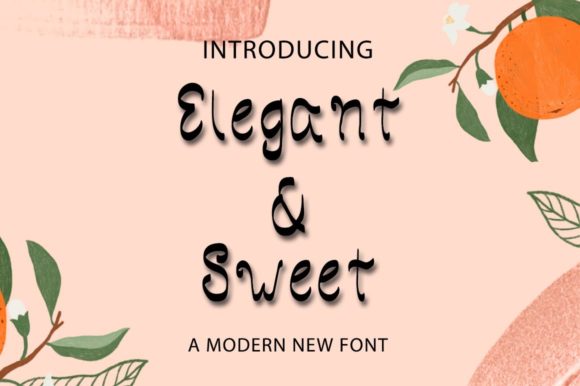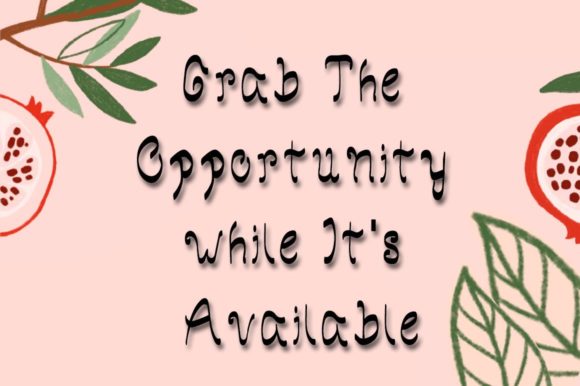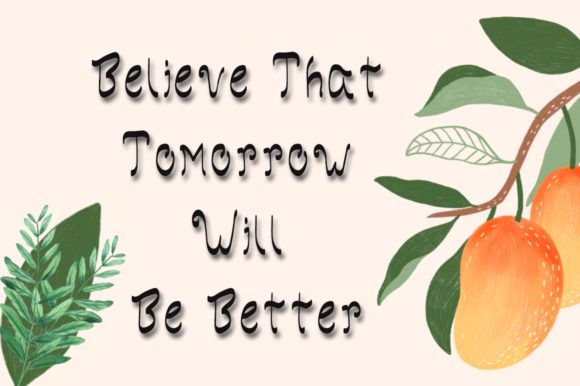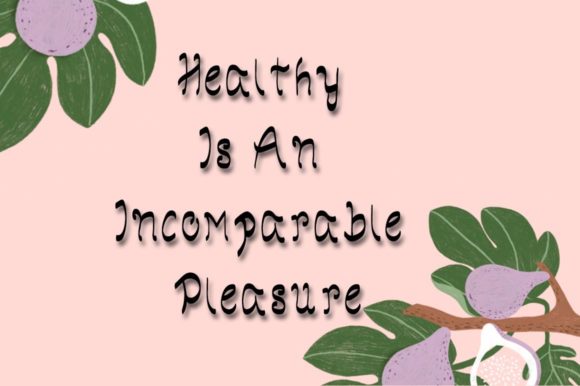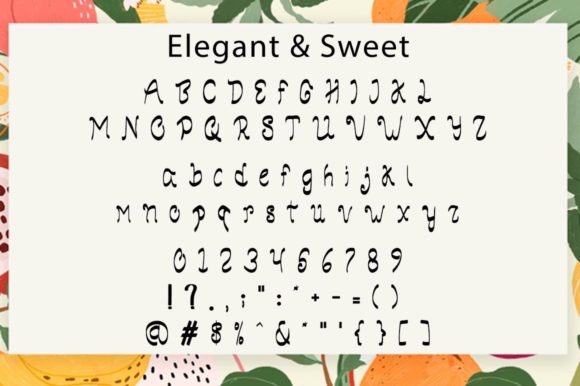
Elegant Sweet Font
Elegant & Sweet presents a delightful and whimsical handwritten font that effortlessly adds a touch of charm to any creative endeavor. This typeface, with its cute and swirly design, stands out as a versatile choice suitable for various contexts. Whether you’re seeking fonts to enhance your Instagram posts or crafting calligraphy scripts for DIY projects, Elegant & Sweet transforms every creative idea into a genuine work of art.
Ideal for a multitude of applications, this font brings a unique blend of elegance and sweetness to your designs. Its enchanting appearance makes it a perfect choice for logos, creating a distinct and memorable visual identity. The playful yet sophisticated nature of Elegant & Sweet also makes it well-suited for headings, infusing your text with character and style.
For those looking to make a statement on apparel, such as t-shirts, Elegant & Sweet proves to be a fantastic option. Its handwritten quality adds a personal and authentic touch, elevating your clothing designs to a new level of creativity. Additionally, the font lends itself beautifully to letterhead, bringing a touch of warmth and personality to your professional correspondence.
Signage benefits from the eye-catching allure of Elegant & Sweet, ensuring that your messages are not only clear but also visually appealing. Labels and packaging receive a boost in visual appeal, making your products stand out on shelves and catching the eye of potential customers. News articles and posters take on a fresh and engaging look when presented in this charming font, captivating readers and leaving a lasting impression.
Beyond the digital realm, Elegant & Sweet finds its place in physical materials like badges. Whether you’re organizing an event or creating identifiers for a team, this font adds a delightful touch to badges, making them both functional and aesthetically pleasing.
In a nutshell, Elegant & Sweet is a versatile and captivating font that goes beyond mere letters on a screen or page. Its applications span a wide range, making it an excellent choice for anyone seeking to infuse their projects with a hint of elegance and sweetness. With its ability to enhance logos, headings, t-shirts, letterhead, signage, labels, news, posters, badges, and more, Elegant & Sweet truly stands as a versatile and invaluable tool for creative expression.